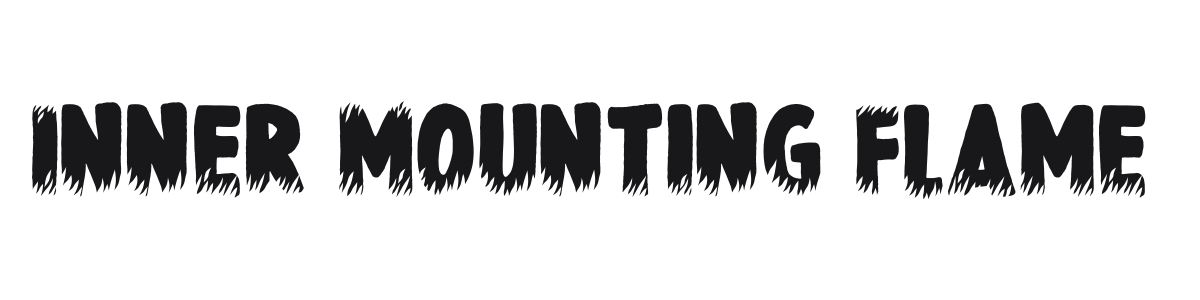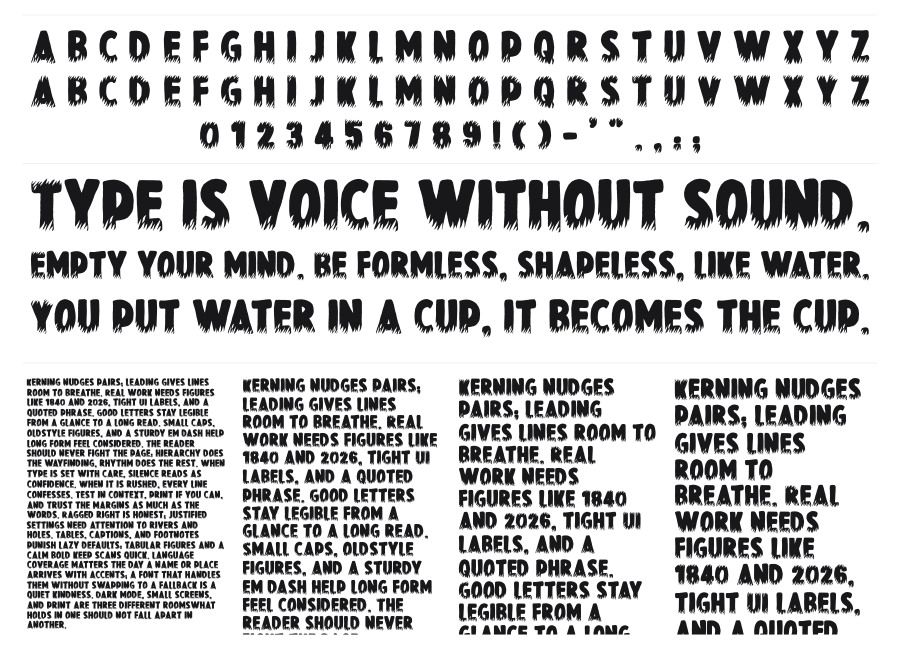
Inner Mounting Flame
Inner Mounting Flame is a heavy display font where every character appears to be erupting from the bottom in sharp, flame-like spikes. The contrast between the solid, chunky letterforms above and the wild fringe below creates an immediately striking effect. It belongs naturally to horror posters, metal band logos, and anything that needs to feel like it's on fire.